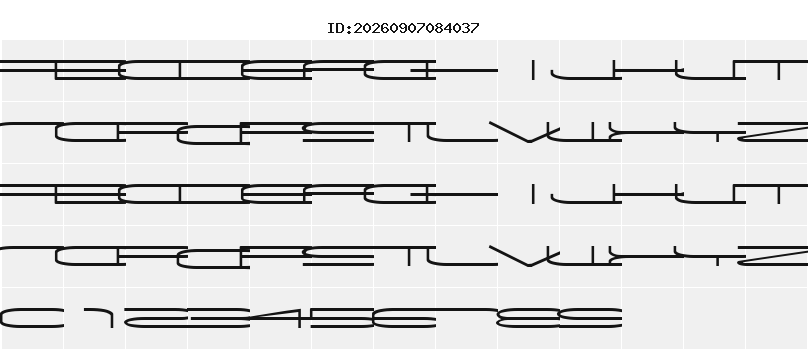
Univox Preview
• Font Name: Univox
• Font Style: Atom Light
• Font ID: Ray Larabie's Univox Atom light
• Full Font Name: Univox Atom Light
• Version: Univox Atom Light - Sunday June 23 1996
• PostScript Name: Univox-AtomLight
• Character Count: 101
About Univox.ttf
Univox.ttf is a modern, elegant sans-serif font designed for ultimate readability and visual harmony. Perfect for branding, headlines, web design, and print materials.